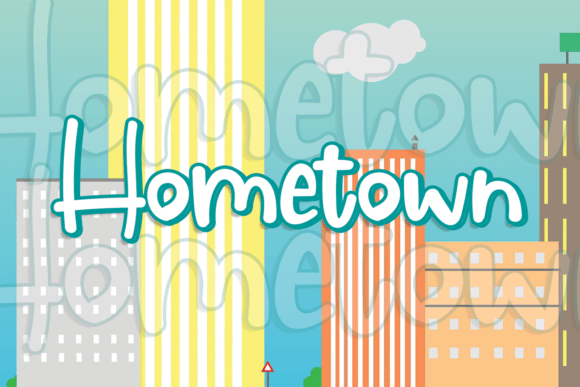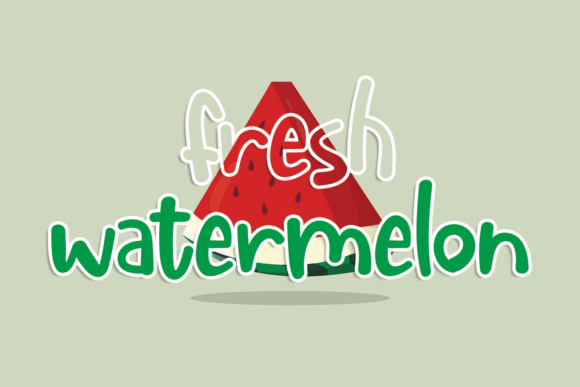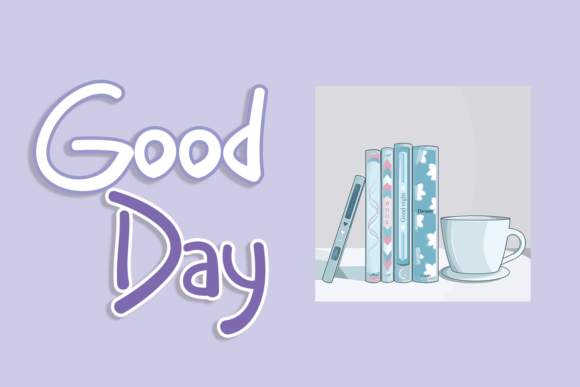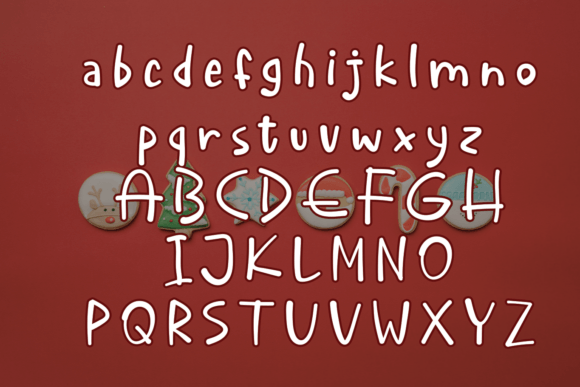
Deck the Halls with a Touch of Whimsy: Unwrapping the Christmas Font
It’s that magical time of the year when creativity knows no bounds. You’re browsing through a holiday market, and you stumble upon a quirky handmade ornament. Its unique design sparks an idea, and before you know it, you’re envisioning a whole festive collection. This is the moment when inspiration strikes, and your creative juices start flowing.
For designers, finding the perfect font to complement your vision can make all the difference. That’s where the Christmas Font comes in – a charming, display font that’s sure to add a touch of holiday cheer to your projects. With its versatility and playfulness, it’s the perfect addition to any festive design, from greeting cards to social media graphics.
Key Features of Christmas Font
- Unique Characteristics: The Christmas Font features a festive and playful design, with bold and colorful characters that evoke the spirit of the holiday season.
Designer Review: Christmas Font
Overall, I’d say the Christmas Font is a solid choice for holiday-themed designs. ✨ The font’s playful, whimsical feel is perfect for festive projects like greeting cards, party invitations, or even social media graphics. The various weight options and style variations allow for a good amount of customization, making it suitable for a range of design applications.
Some of the strengths of this font include:
- ✨ The availability of various style options, such as bold, italic, and outline, which can be useful for adding emphasis or creating visual interest.
However, I do have a few concerns:
- ⚠️ The font may be too flashy or over-the-top for more subdued holiday designs, which could make it difficult to pair with certain color schemes or other design elements.
- ⚠️ Some users may find the font’s weight options to be inconsistent or uneven, which could affect the overall aesthetic of a design.
In conclusion, while the Christmas Font is not perfect, it’s a solid choice for holiday-themed designs. With a little care and attention to balance, it can be a great addition to any festive project.
Tips for Getting the Most Out of Christmas Font
Some tips to keep in mind when using Christmas font include:
- Use Christmas font in combination with other festive graphics and images to create a cohesive look.
- Don’t overdo it – too much Christmas font can be overwhelming.
Some common use cases for Christmas font include:
- Christmas card designs.
- Party invitations.
- Advertising materials (e.g., posters, flyers).
Alternatives to Christmas Font for Designers